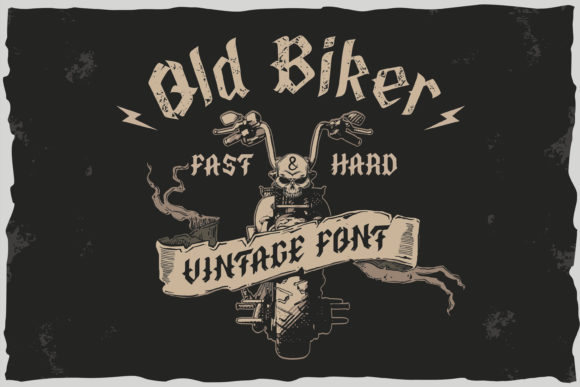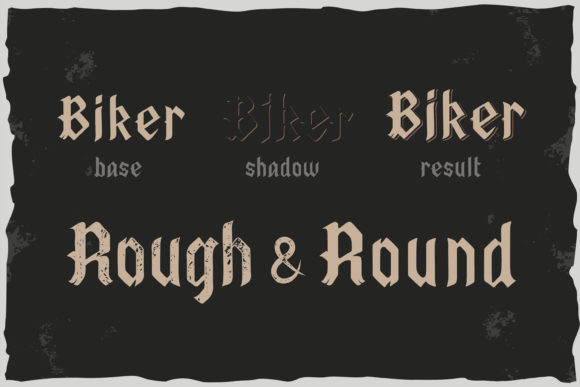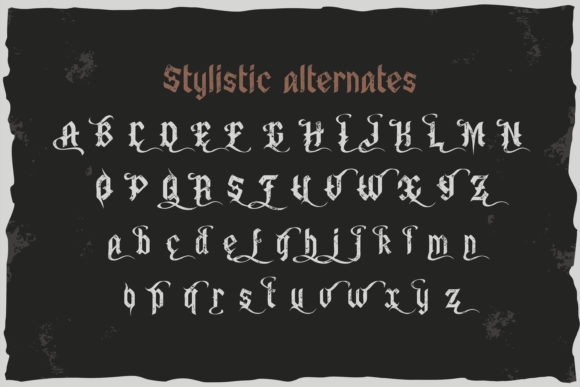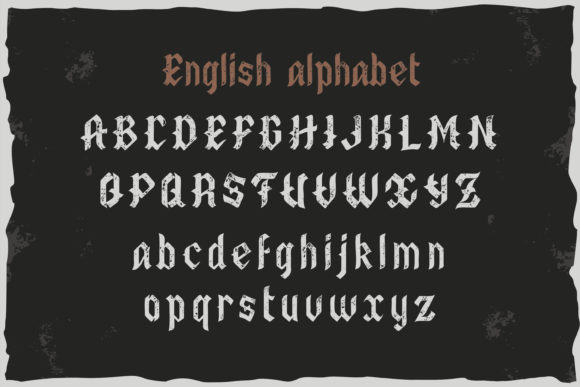
Old Biker Font: A Bold Blackletter for Vintage Logo Design & Cricut Crafts
About the Old Biker Font
Presenting Old Biker Font, a unique and stylish typeface that will make your work stand out. Old Biker is a bold and vintage styled blackletter font. Dramatic and assertive, this font will instantly make your creations come alive. Use this font for your designs and explore its endless possibilities.
Old Biker excels in headlines, short impactful statements, and branding applications where a strong, vintage aesthetic is desired. It’s ideal for posters, logos, and packaging for products emphasizing heritage, rebellion, or a classic, rugged feel. However, its highly decorative nature makes it unsuitable for body text or UI elements requiring high readability. Long blocks of text set in Old Biker will be difficult to read.
The font projects a bold, assertive, and rebellious personality, conveying a sense of vintage grit and power. It’s best suited for brands that wish to communicate strength, heritage, or a non-conformist spirit.